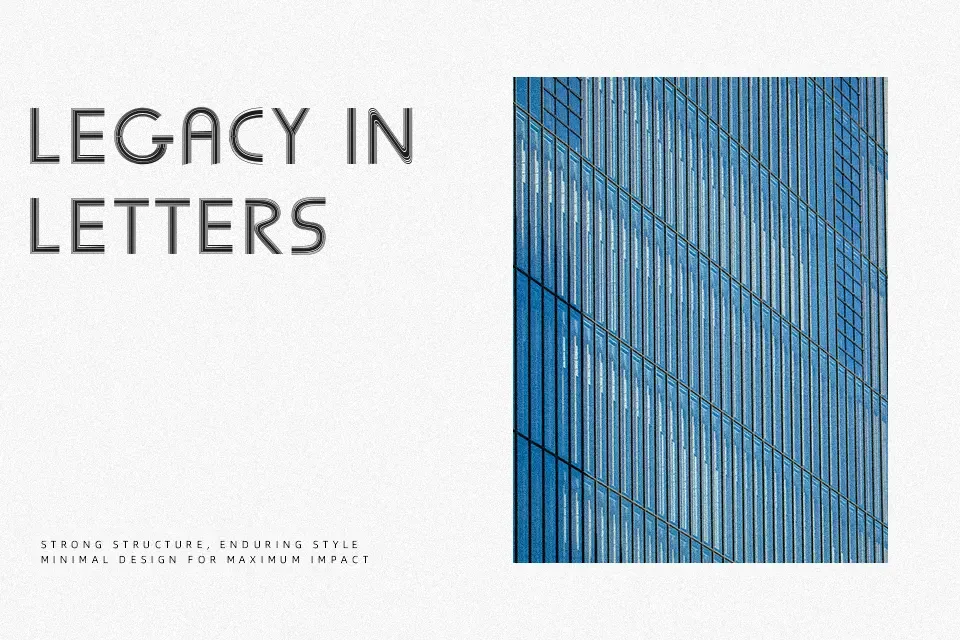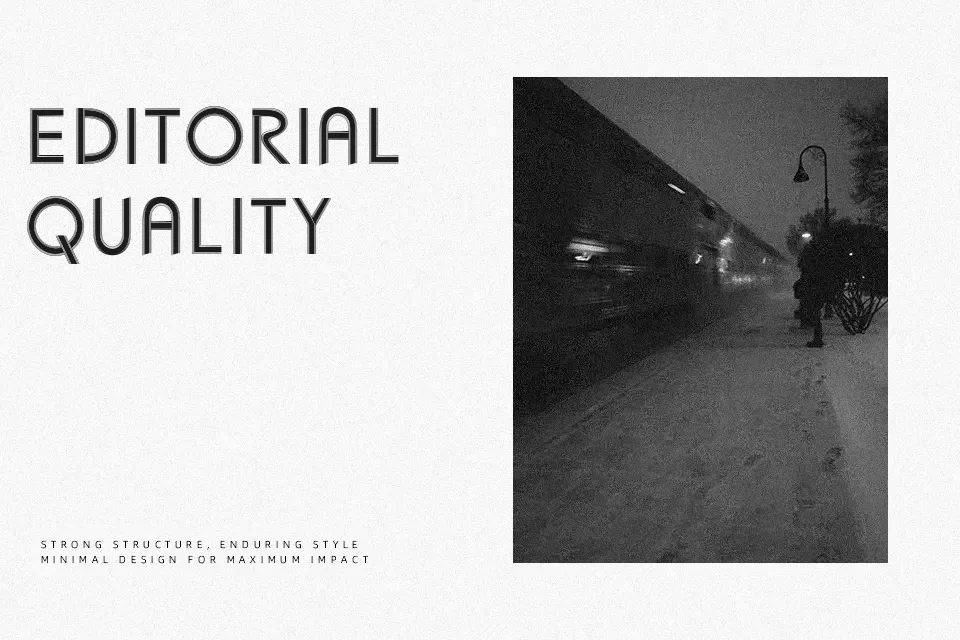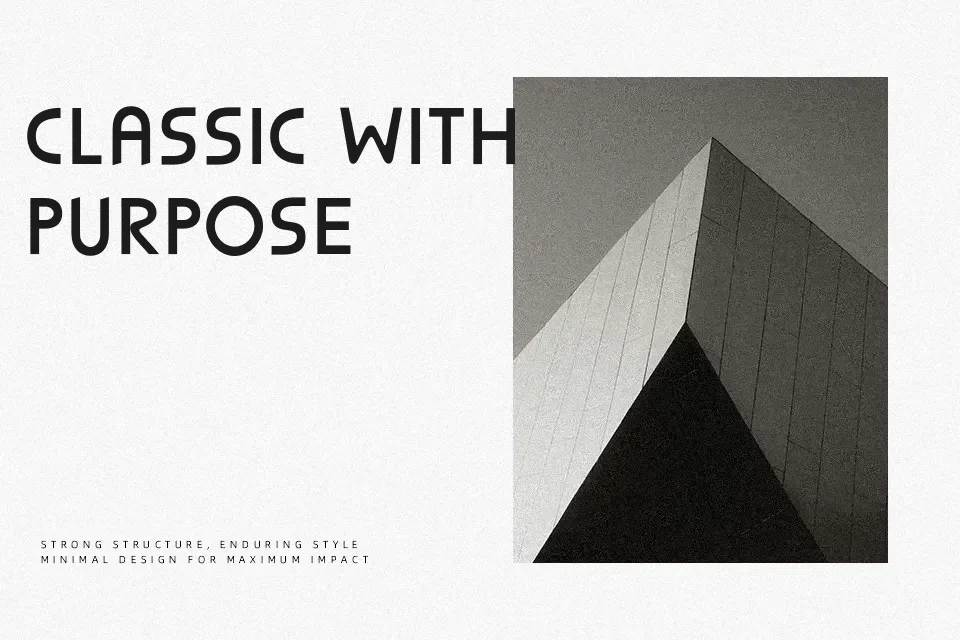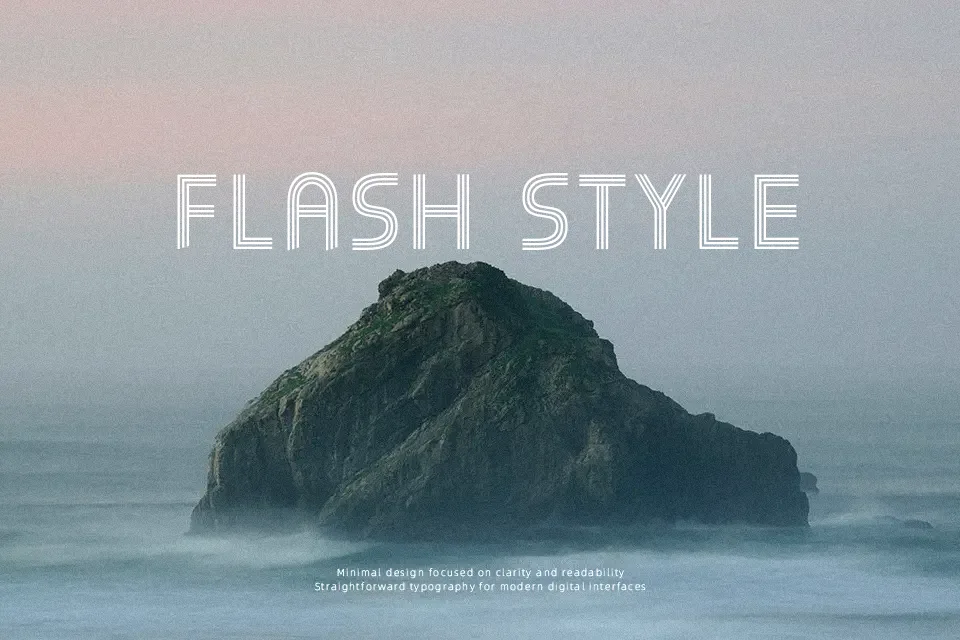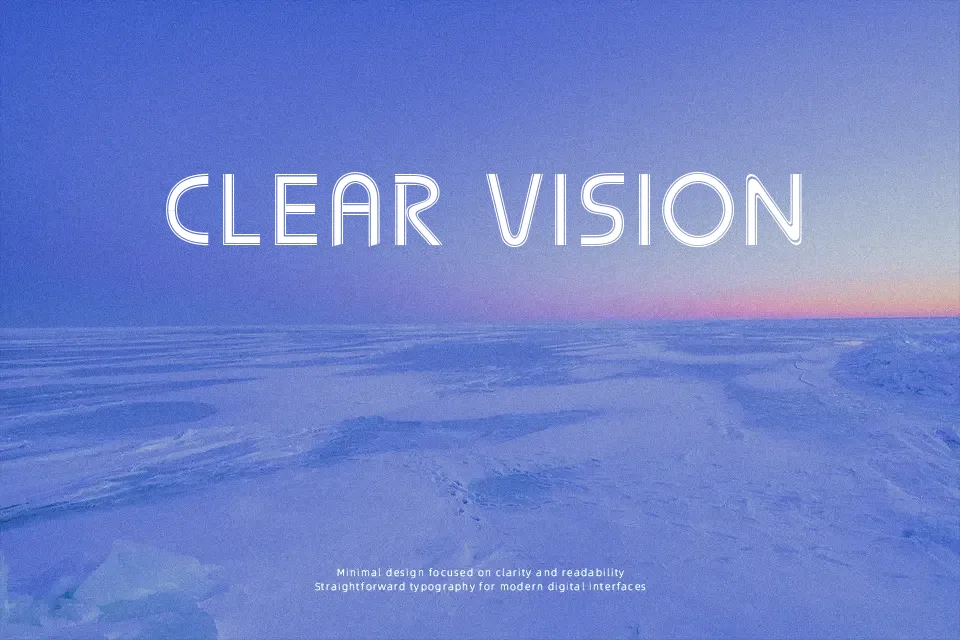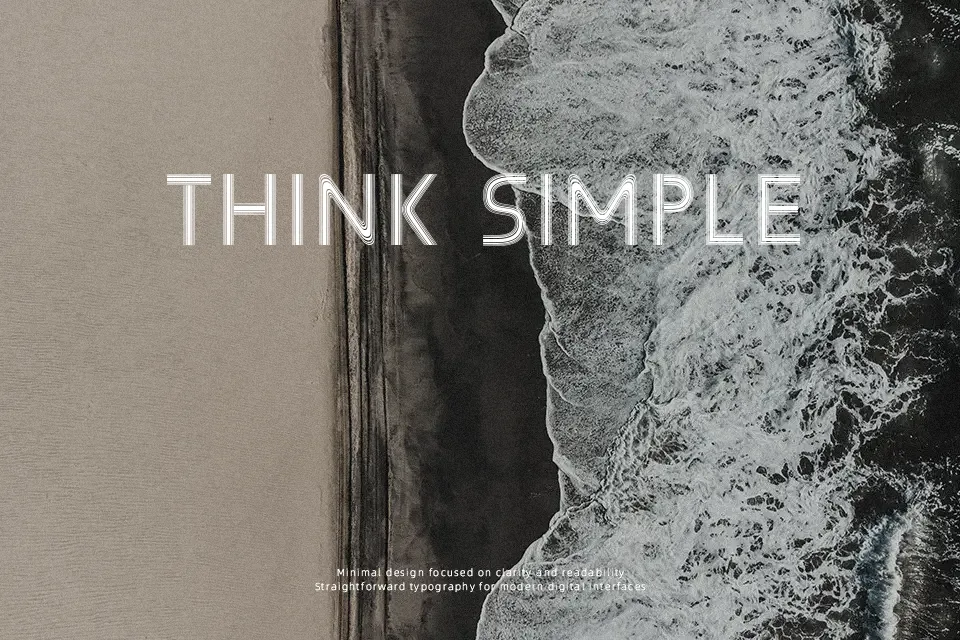
Sunscreen Font
Designed by Simon Cozens
Sunscreen Font is a geometric display typeface distinguished by its multi-line striped stroke construction and rounded terminal paths. The open internal counter spaces and parallel line work generate an eye-catching rhythmic texture across uppercase characters. Proportionally wide glyph structures maintain balanced spacing in large layouts, though the parallel lines begin to blend together at smaller scales. The typeface performs effectively in music festival posters, retro apparel graphics, and packaging headlines where visual impact is paramount. However, the intricate multi-line structure makes the design unsuitable for continuous body text or small interface captions, where clean legibility is required.
vintage event posters
retro apparel graphics
album cover typography
packaging display titles
long paragraph reading
mobile interface body copy
dense editorial columns
small legal disclaimers
Perfect for advertising, headline, and logo, with a bold and decorative style.